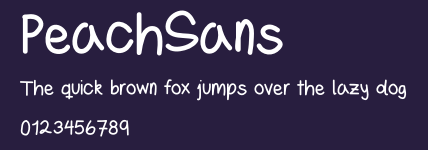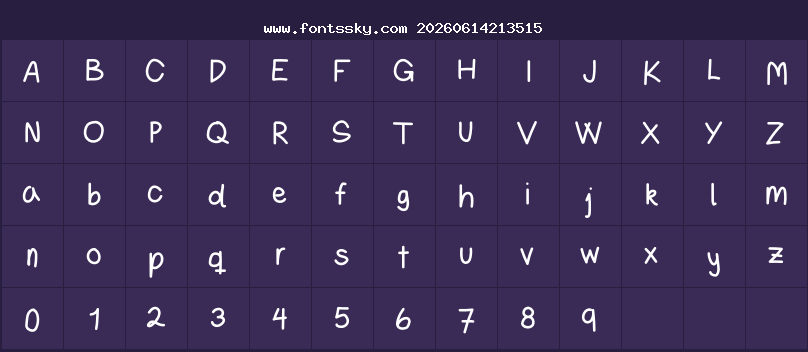
• Font Name: PeachSans
PeachSans.otf is a modern, elegant sans-serif font designed for ultimate readability and visual harmony. Perfect for branding, headlines, web design, and print materials.